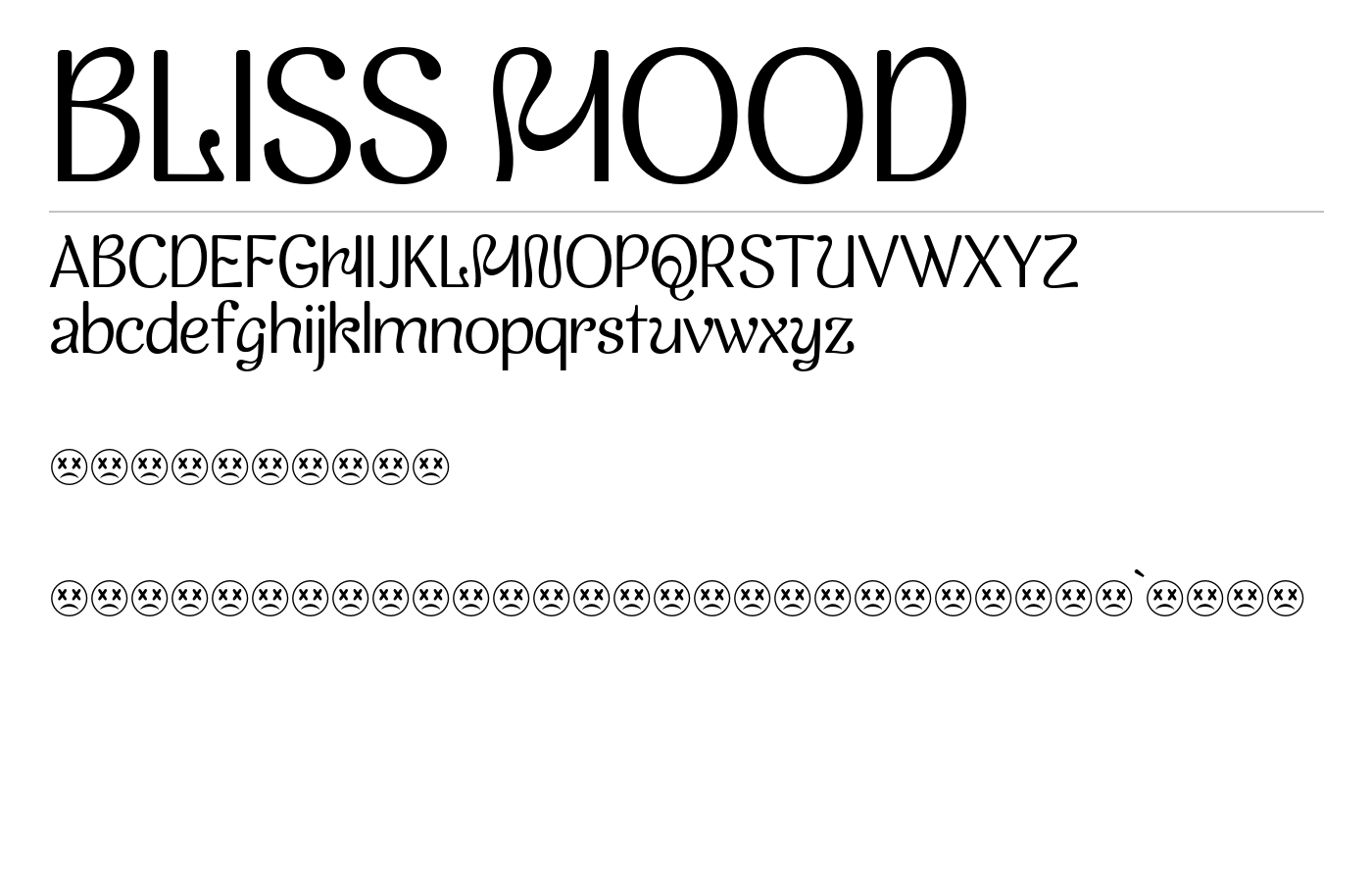
Bliss Mood is a playful and quirky serif font with unusual, artistic letterforms that give it a hand-drawn, whimsical feel. Its tall, narrow shapes combined with subtle strokes and distinctive character details make it perfect for creative branding, headlines, and projects seeking a unique, expressive personality. This font brings a cheerful, informal vibe that works well for fashion, lifestyle, or artistic designs where a touch of charm and originality is desired.
BLISS MOOD Font